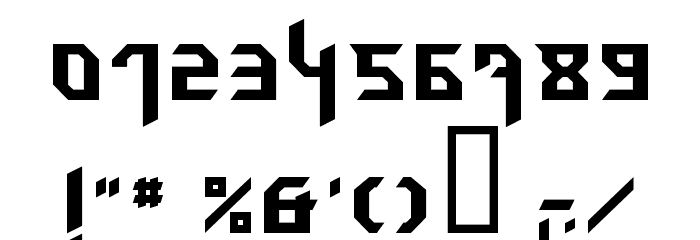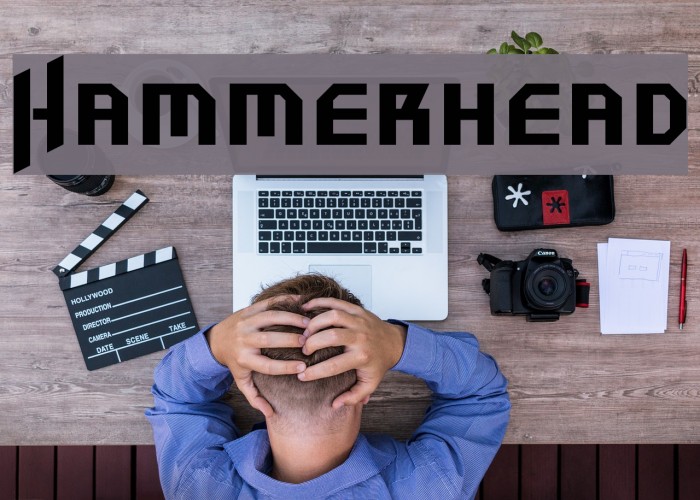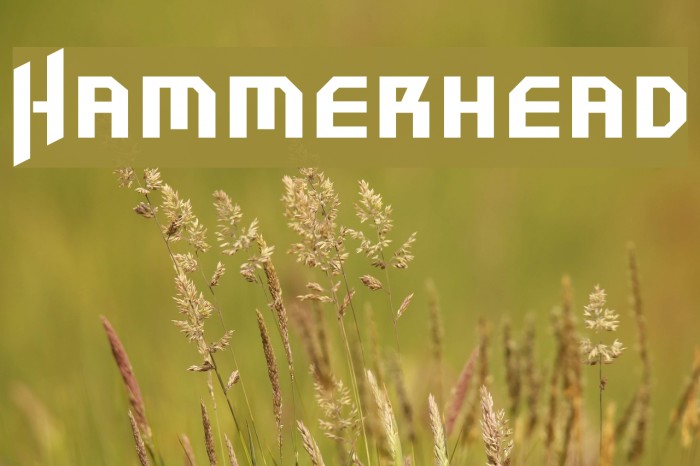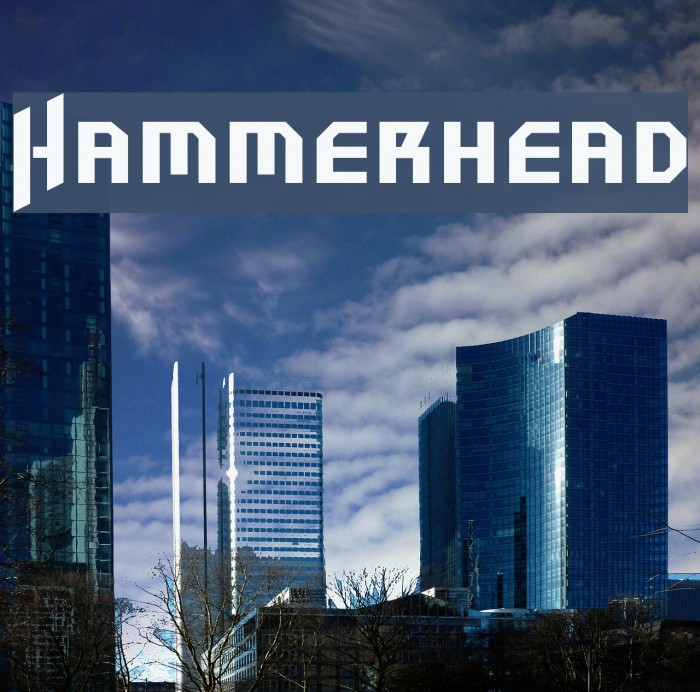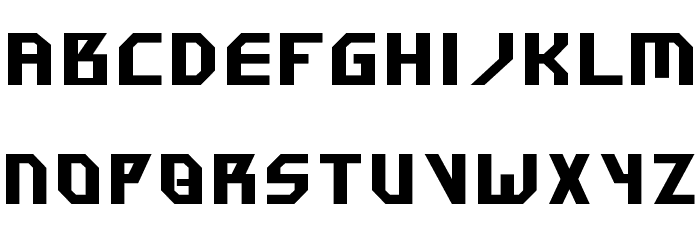
Hammerhead Font
This font features a bold, angular design with sharp edges and geometric shapes, giving it a futuristic and aggressive appearance. The characters are constructed with a combination of straight lines and acute angles, creating a sense of movement and energy. The uppercase and lowercase letters maintain a consistent style, with the uppercase being slightly more pronounced. The numerals and special characters follow the same design principles, ensuring uniformity across the typeface. This font is highly stylized, making it ideal for projects that require a strong visual impact.
A bold, angular font with a futuristic and aggressive design.
• Proposed Projects: Ideal for video game titles, sci-fi movie posters, sports team logos, and edgy branding materials.
• Category: Decorative/Display
• Bold: Yes
• Italic: No
• Weight: Bold
• Width: Normal
• Character Spacing: Normal
• Contrast: High
• Overall Style: Futuristic
• Use Case: Logos, Headlines, Posters